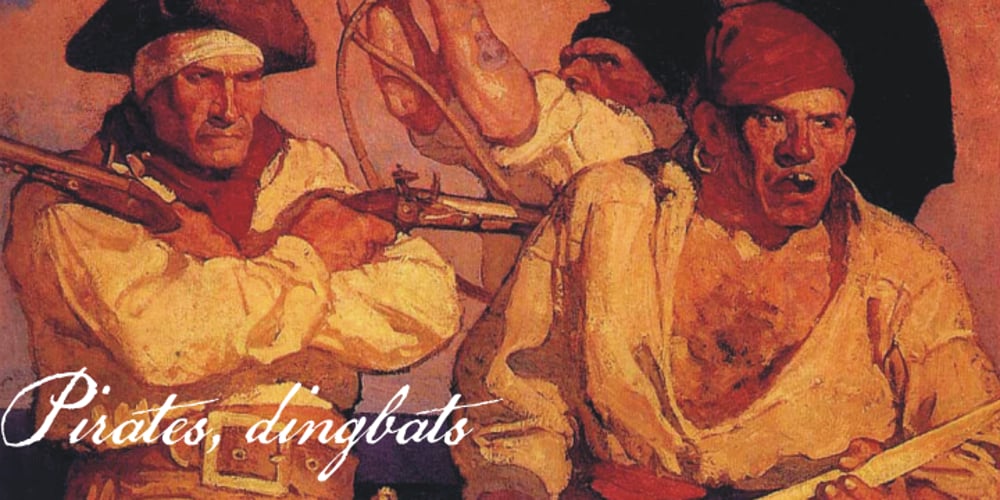
Pirates De Luxe
Pirates De Luxe font
Pirates De Luxe Font Family was designed by Paulo W and published by Intellecta Design. Pirates De Luxe contains 1 styles and family package options. Dingbats based on authentical and historical pirate’s flags and other devices in your universe.